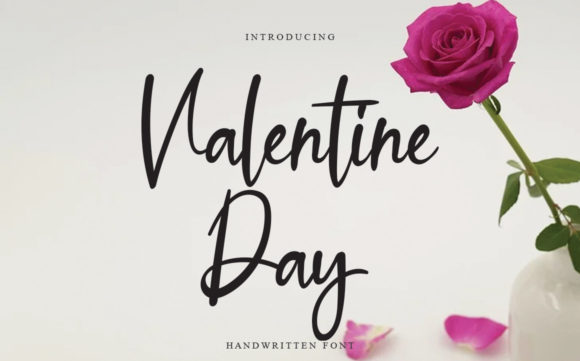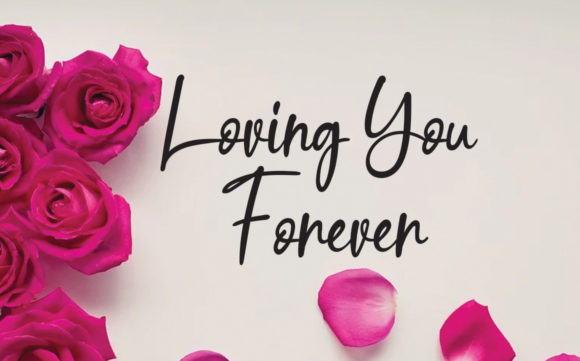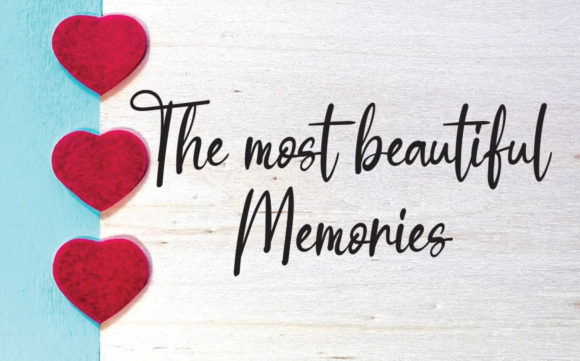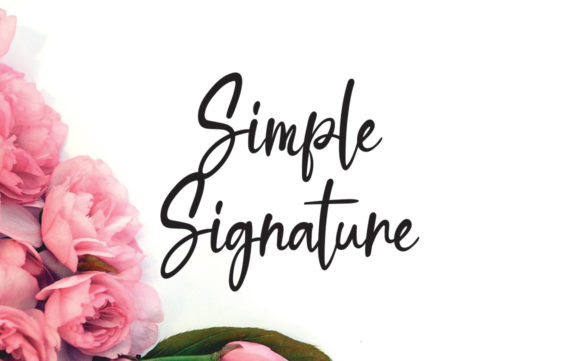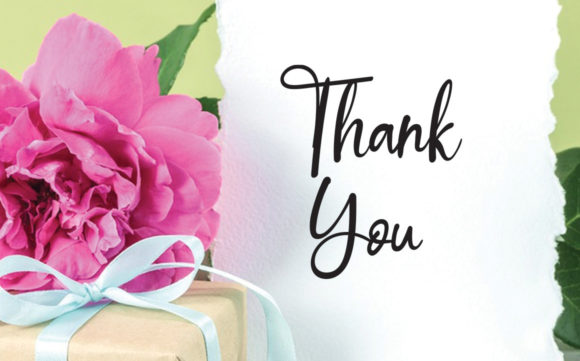
Valentine Day Font
About Valentine Day Font
Valentine Day is a sweet and romantic handwritten font featuring a delicate flow. Use it for wall displays, wedding invitations, social media post logos, and any project that requires impressive typography.